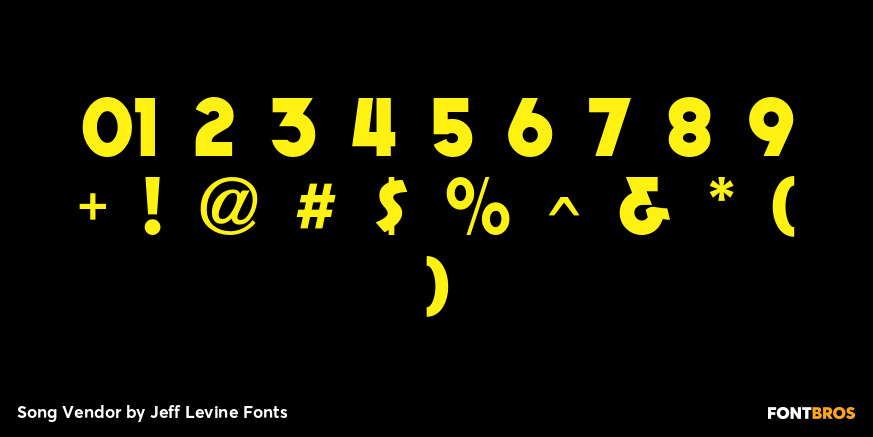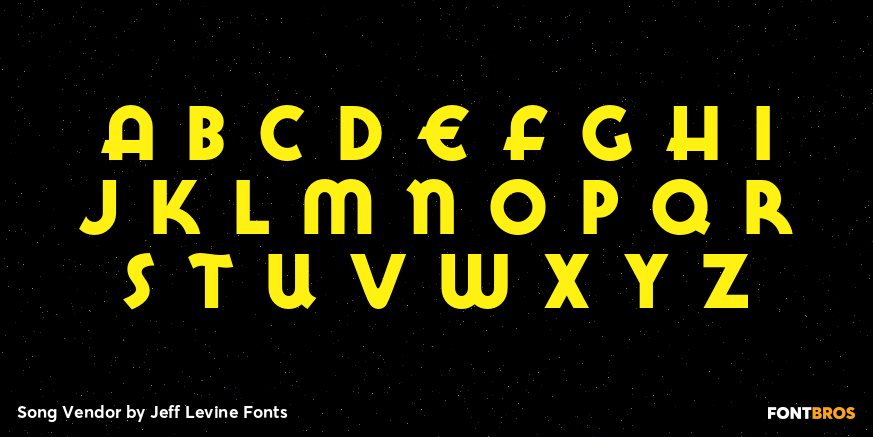
Song Vendor
The hand lettered words 'favorite songs' in the masthead of the 1940s British music collection 'Albert's Favourite Song Album No. 4' inspired Song Vendor JNL, which is available in regular and oblique versions.
Song Vendor JNL Regular by Jeff Levine Fonts